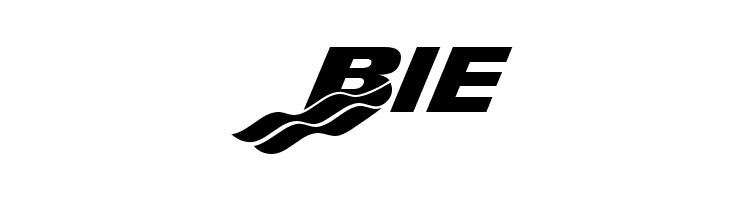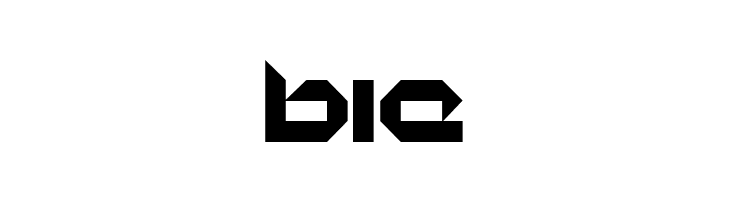
A playful, monster-themed decorative font with bold, geometric characters.
A bold, geometric font with rounded edges, offering a modern and futuristic look.
A bold, futuristic font with rounded edges and geometric shapes.
A bold, futuristic font with geometric shapes and smooth curves, slightly italicized for a dynamic look.